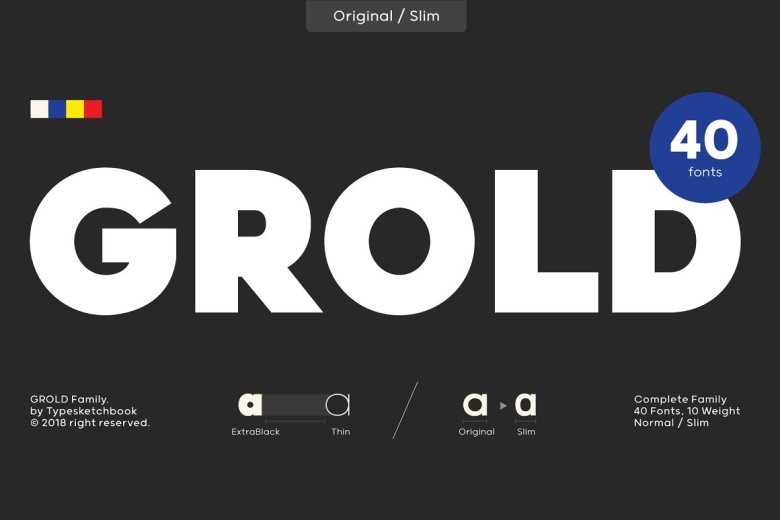
Grold Font Family
Grold Sans Font Family is the most upcoming post-geometric font that consists of 40 fonts in total with 10 different weight classes and normal with slim. The typeface is complete sans typeface that id rather contemporary in its design and that makes it versatile for various uses like headlines and small texts. The Grold fonts are multi-functional and they can be used as webfonts as well as fonts for your computer.
Grold Bold Sans Font Family